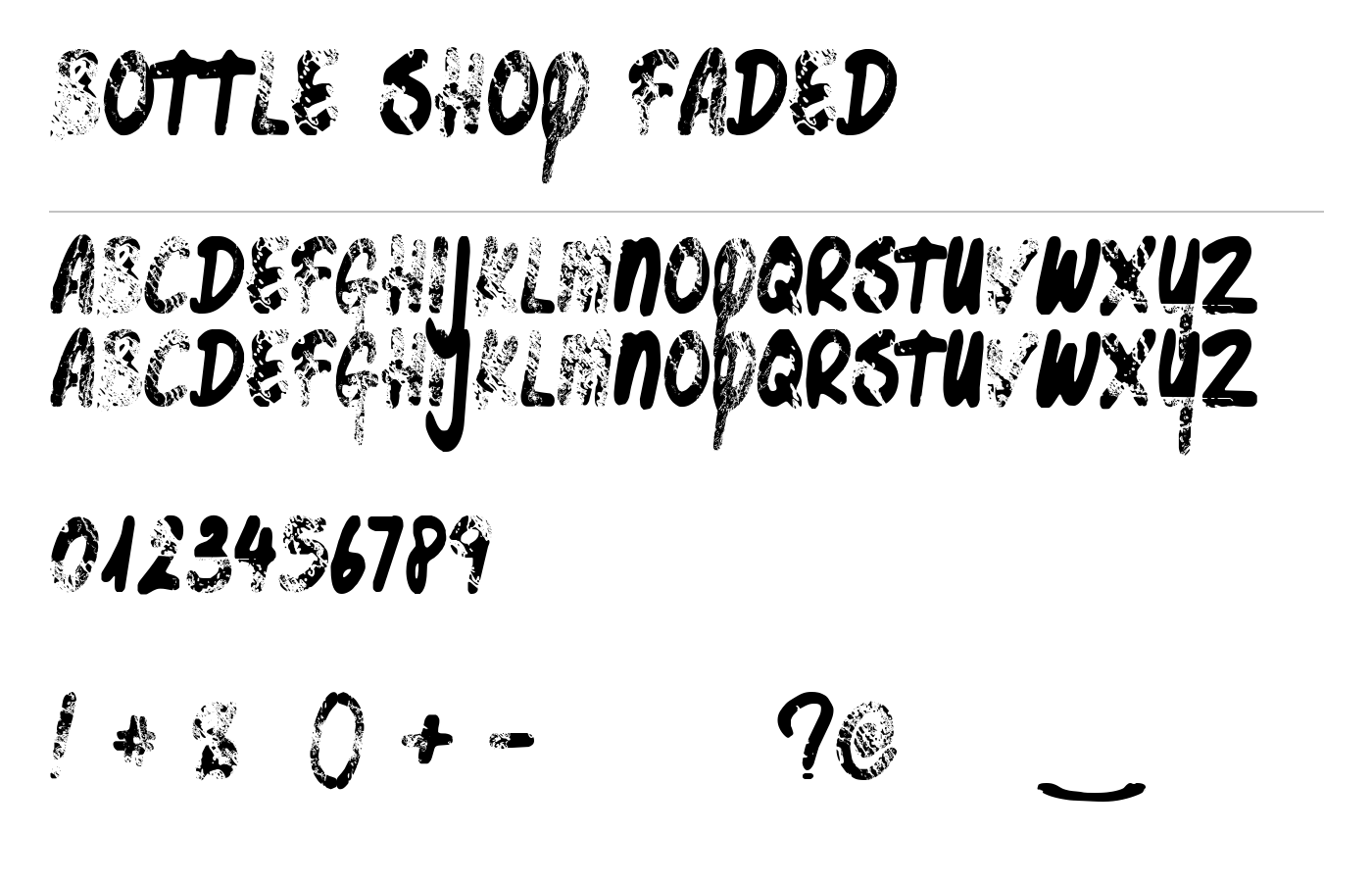
Bottle Shop Faded is a bold, casual script-inspired display font with a distressed, textured effect that gives it a worn, vintage vibe. Its uneven, hand-drawn letterforms with a fading, grunge style make it perfect for creative branding, posters, and packaging that need a rugged, urban, or retro feel. This font stands out best in large sizes for headlines or logos that want to convey a raw, edgy personality.
Bottle Shop Faded Font
About Bottle Shop Faded Font
| Font family | Bottle Shop Faded Font |